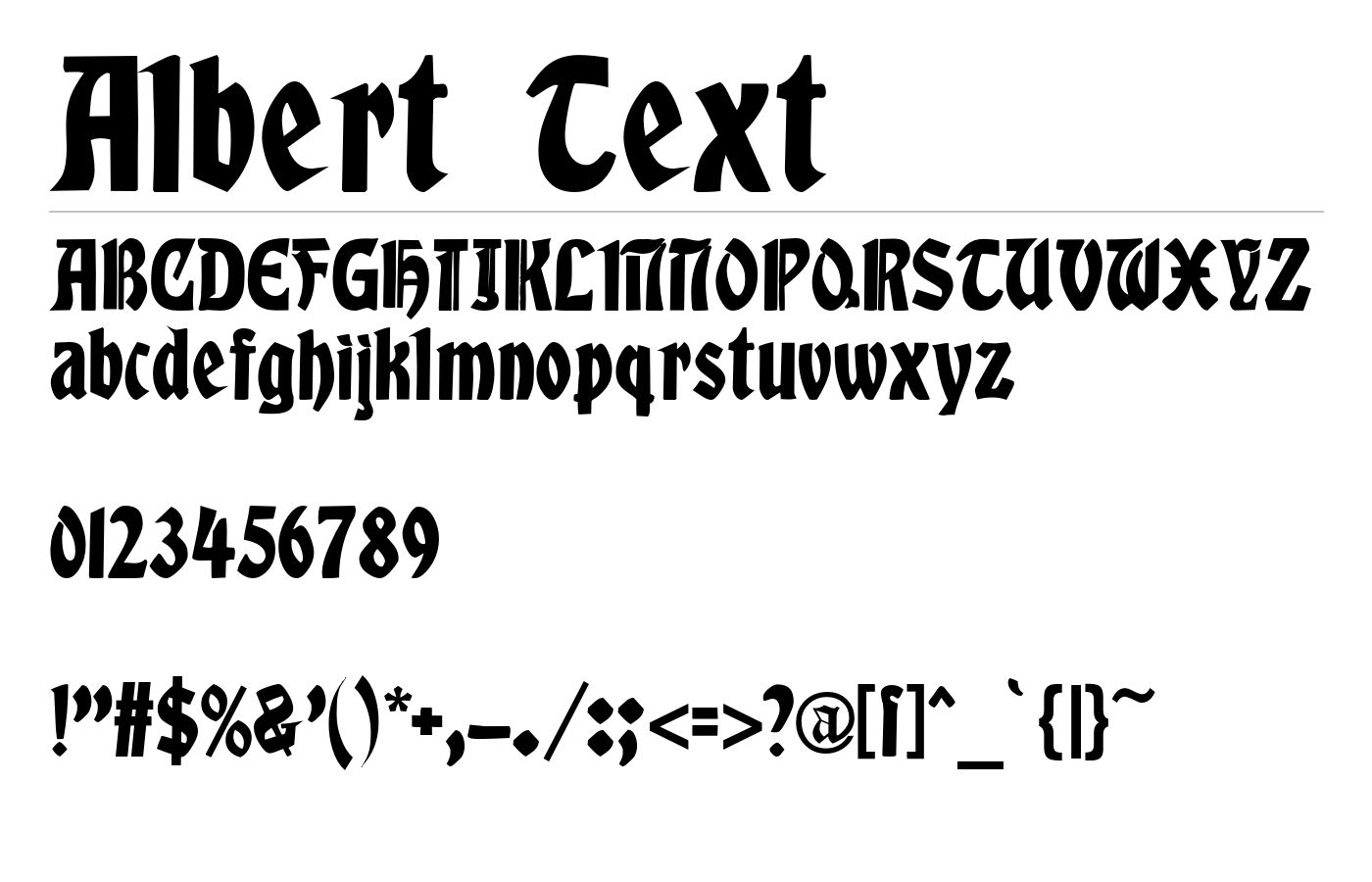
Albert Text is a bold, condensed serif font with a distinctive vintage Gothic flair, featuring sharp, angular strokes and high contrast between thick and thin lines. Its unique letterforms blend old-style blackletter influences with modern readability, making it ideal for impactful headlines, logos, and branding that seek a historic or dramatic personality. This font works well in designs that want to convey strength, tradition, and a striking visual presence.
Albert Text Font
About Albert Text Font
| Font family | Albert Text Font |
| Designer | Dieter Steffmann |